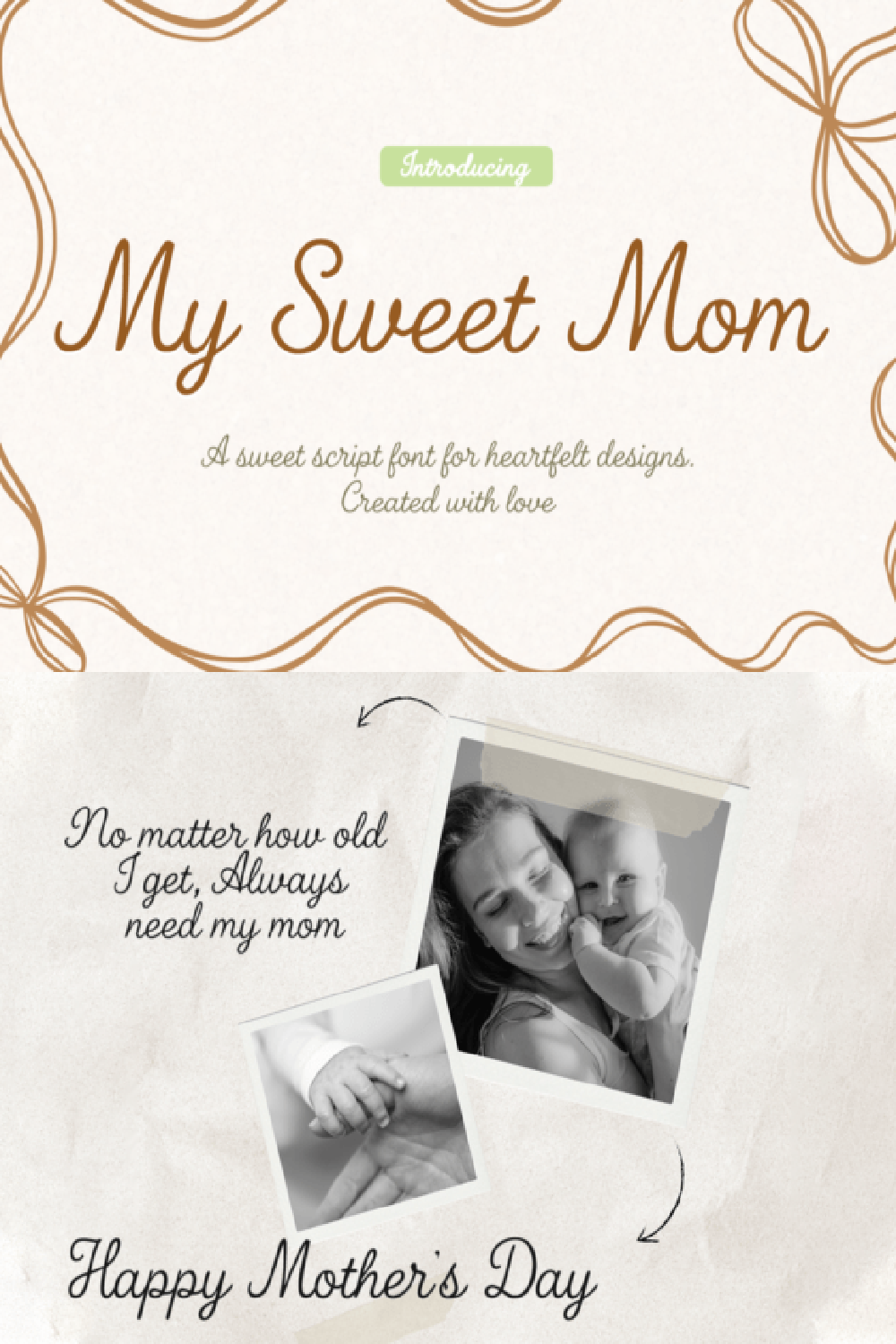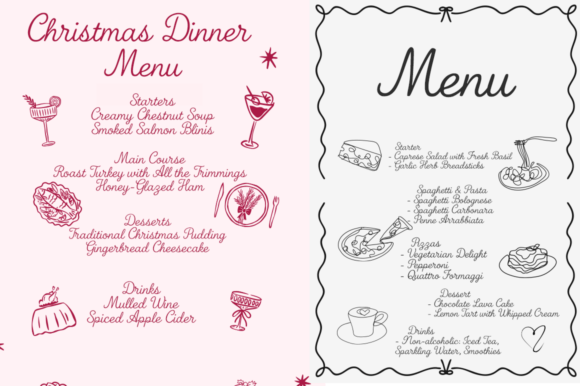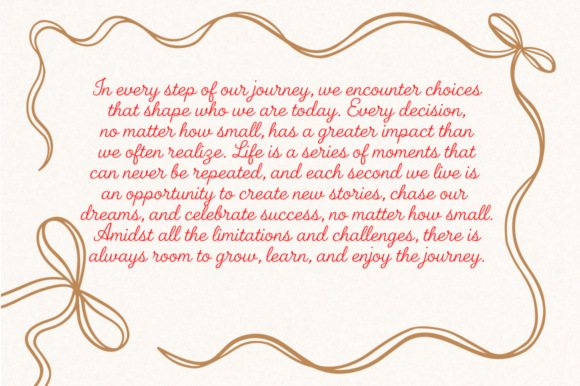
My Sweet Mom Font: Elegant Script Typography for Heartfelt Designs
About the My Sweet Mom Font
Introducing the My Sweet Mom Font, a beautifully crafted typeface designed to elevate your creative projects. With a graceful blend of elegance and tenderness, My Sweet Mom script font is an exquisite choice for projects exuding love and femininity. This smooth typeface, thriving in various artistic ventures, uniquely elevates greeting cards, invitations, and packaging with its heartwarming allure. My Sweet Mom font, effortlessly ties up your design story, adding warmth and sophistication for a visually rewarding result.
My Sweet Mom’s delicate script excels in applications requiring a touch of femininity and warmth, such as wedding invitations, greeting cards, and product packaging for beauty or lifestyle brands. It also works well for short headlines or quotes where its elegant curves are showcased. However, its low x-height and decorative flourishes make it unsuitable for body text or UI elements, where readability is paramount.
Pairing My Sweet Mom with a clean sans-serif like Montserrat for body copy provides excellent contrast and readability. For a more vintage feel, consider pairing it with a classic serif such as Garamond or Playfair Display. These pairings balance the script’s softness while maintaining visual interest.
The font projects a personality that is undeniably feminine, elegant, and romantic, lending itself well to brands that emphasize those qualities. Avoid using it for projects demanding a strong, modern, or minimalist aesthetic.